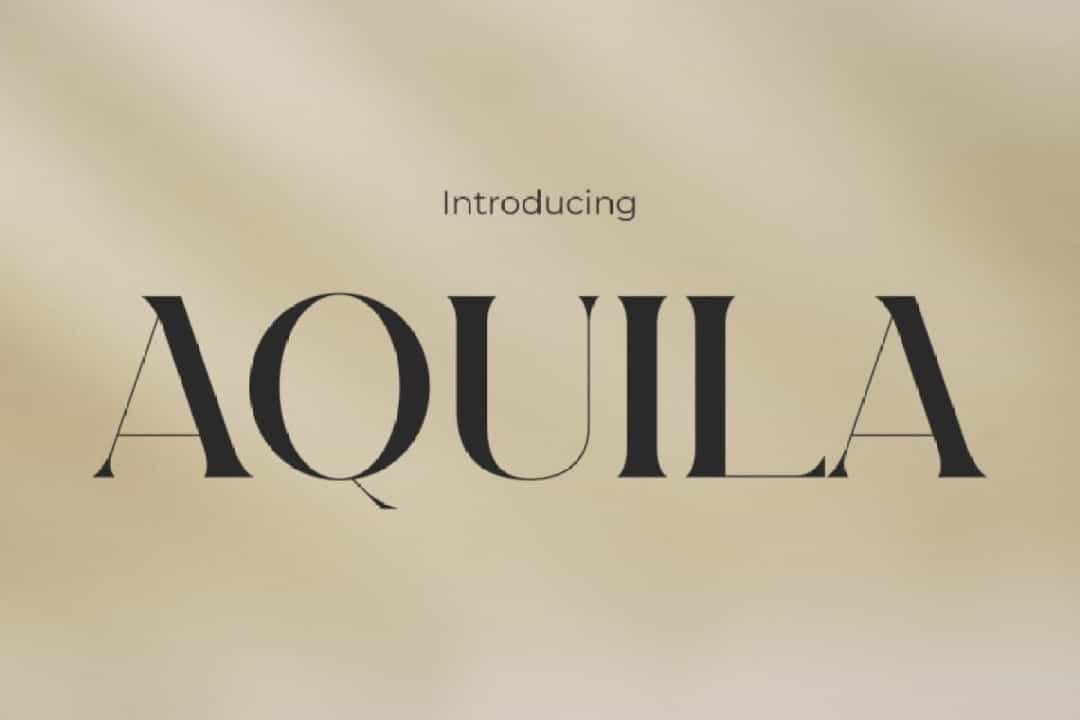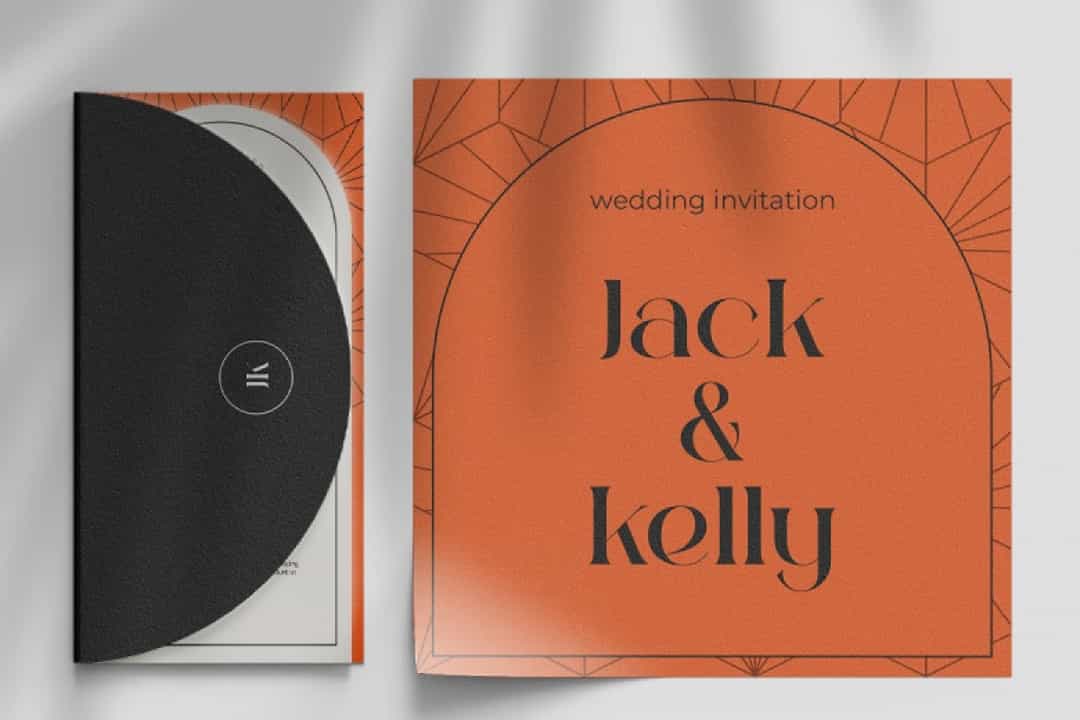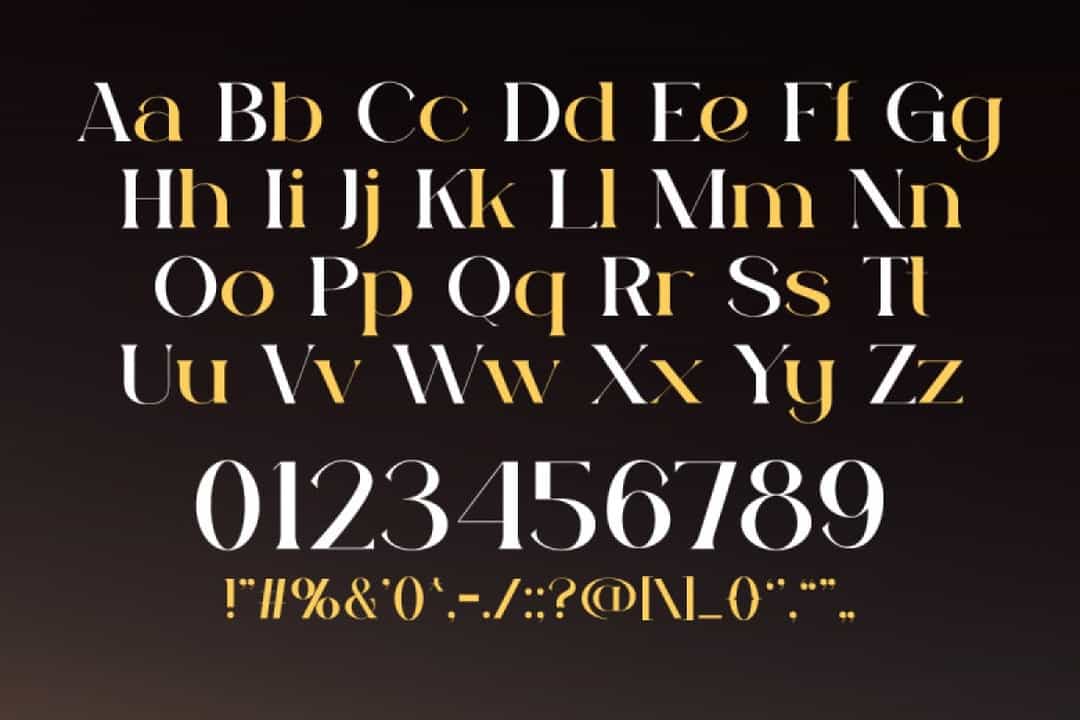
Explore the beauty in every stroke with our elegant Aquila font! It is filled with grace and offers more than an elegant typographic style; it creates an amazing visual experience too. Aquila strikes a delicate balance between its refined impression and feminine elegance – ideal for projects calling for original designs!